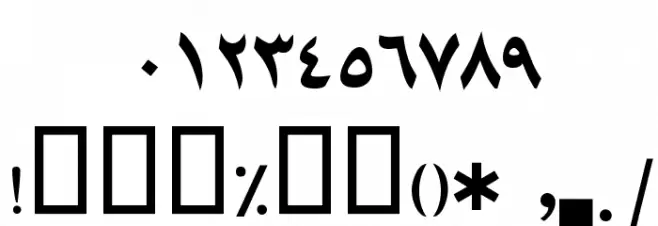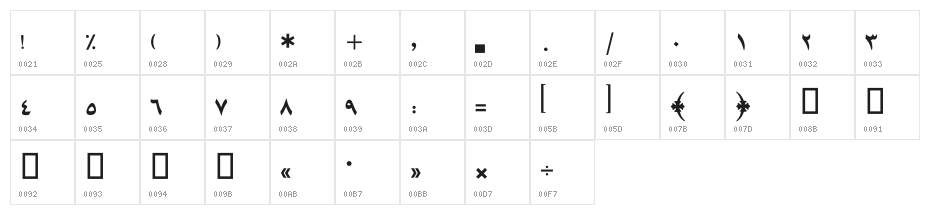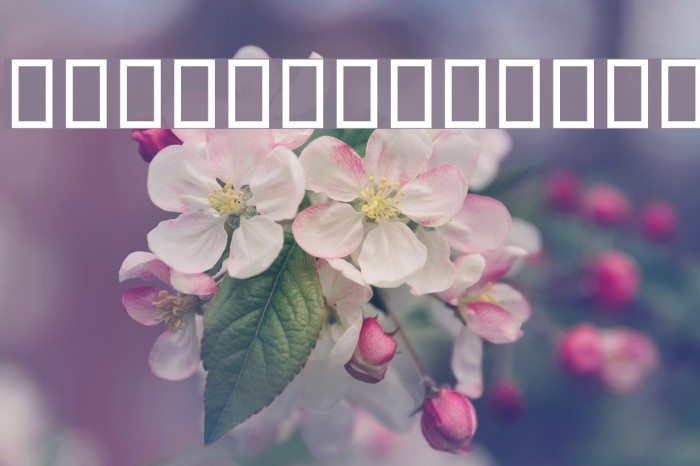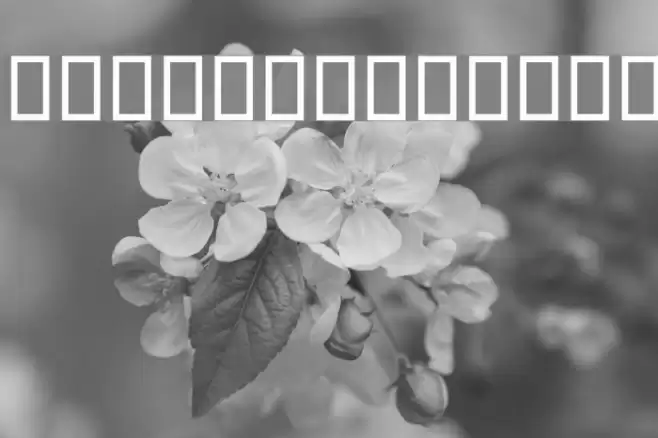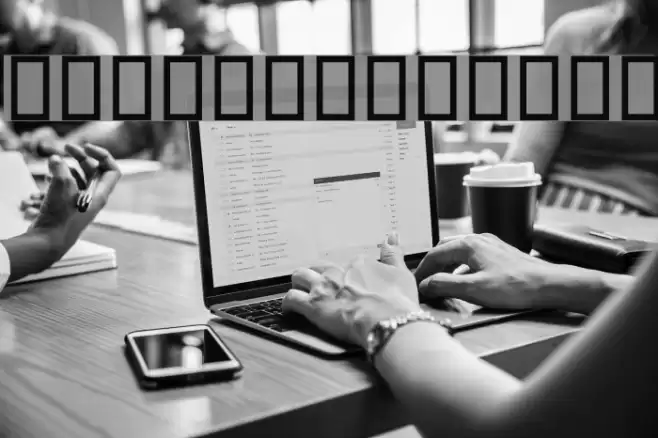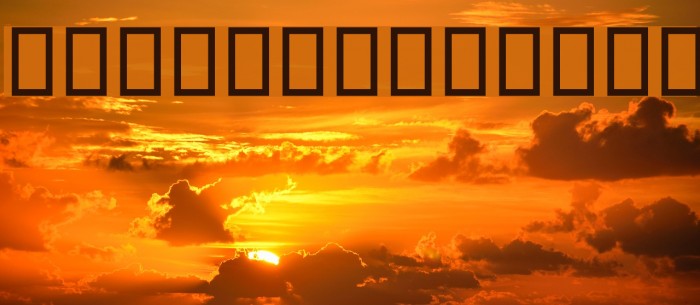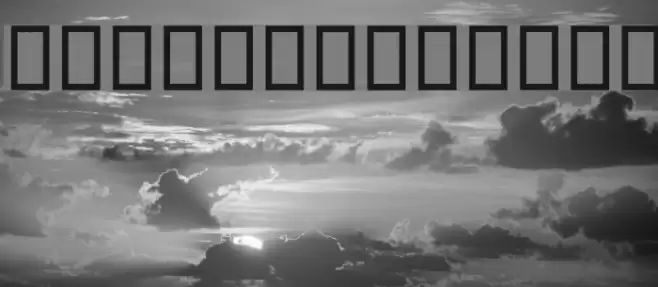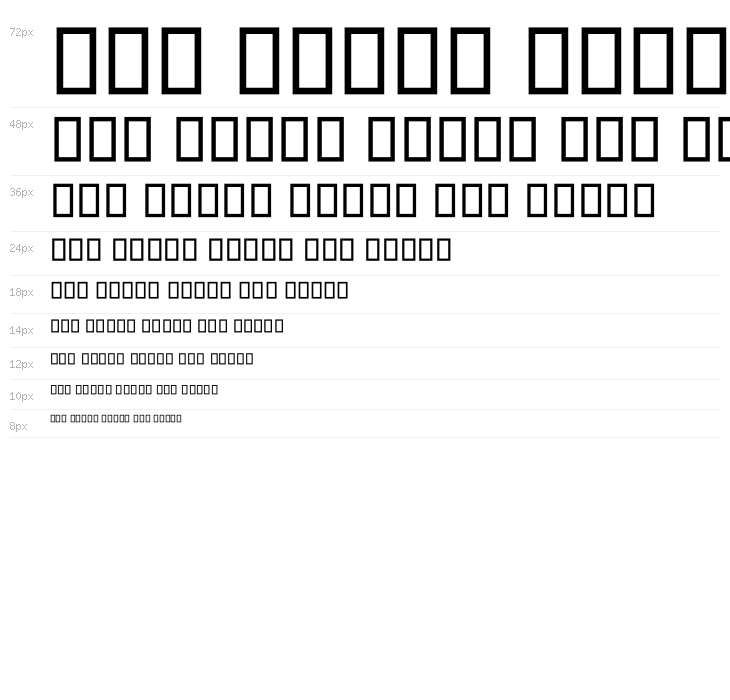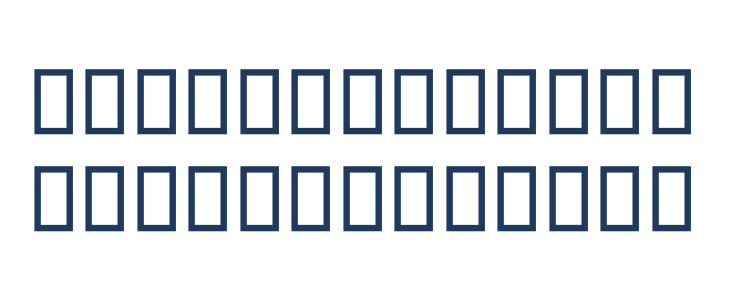
Badakhsh Light Font
Badakhsh Light Description
This font features a unique and artistic design, characterized by its flowing and curvilinear strokes that give it a distinct calligraphic appearance. The characters are elegantly crafted with a sense of movement and fluidity, making it stand out as a decorative typeface. The numbers are particularly stylized, with each numeral exhibiting a playful and dynamic form. The special characters maintain the same artistic flair, adding to the overall cohesive look of the font. This typeface is ideal for projects that require a touch of elegance and creativity.
| Proposed Projects | Ideal for wedding invitations, artistic posters, branding for luxury products, and creative design projects. |